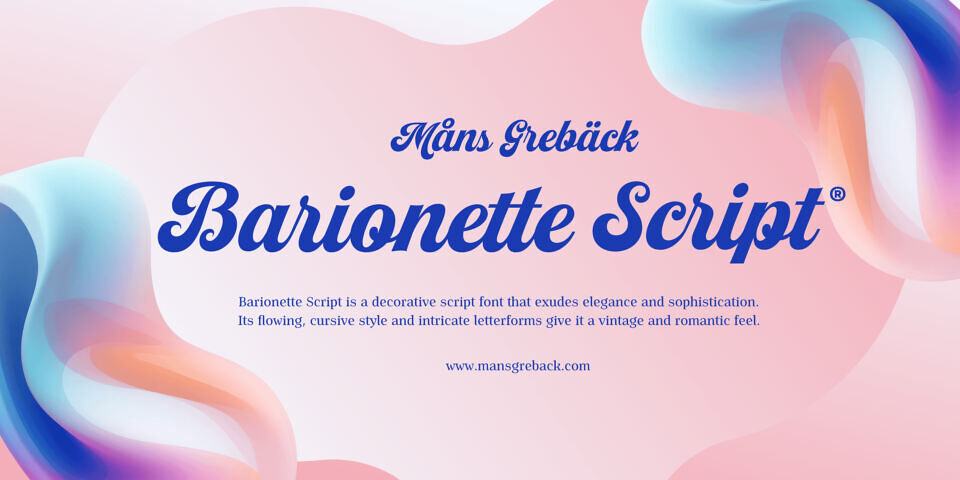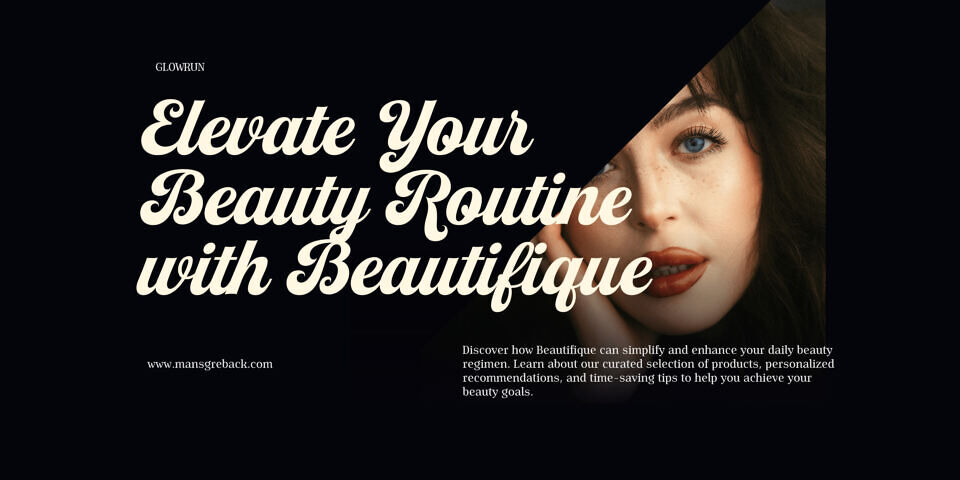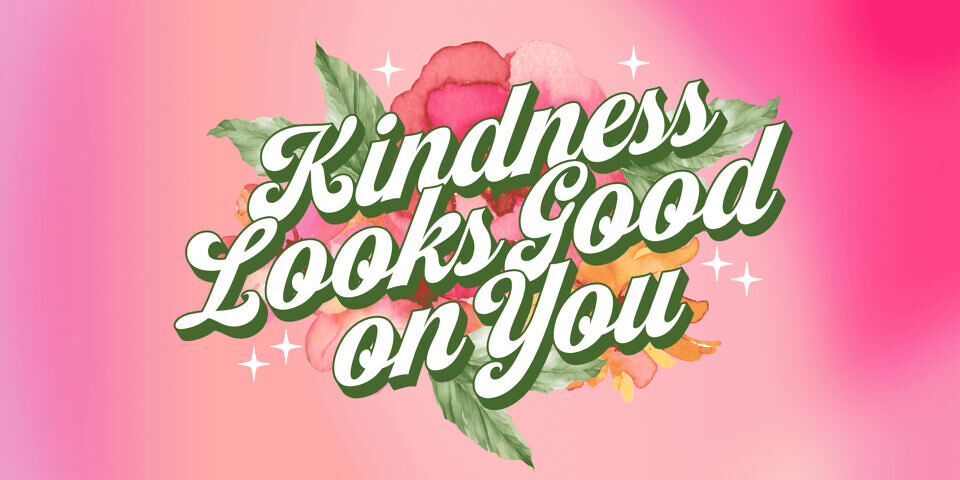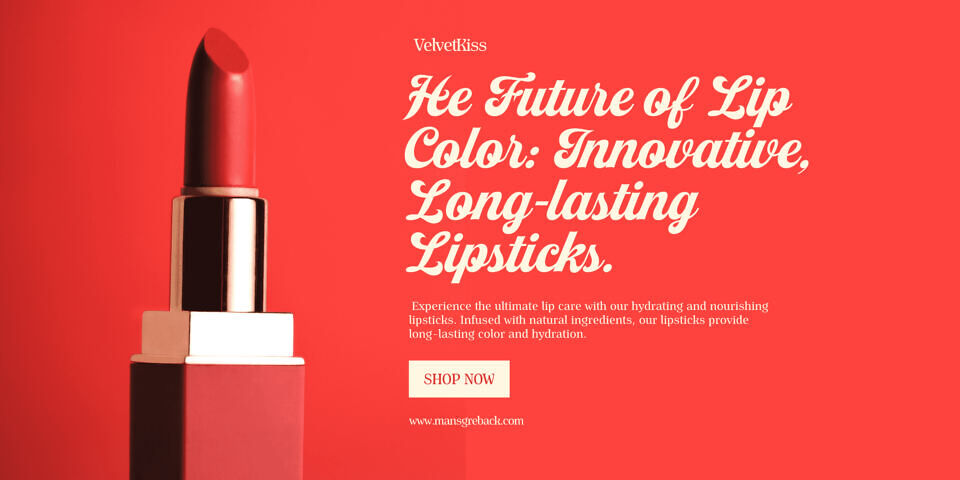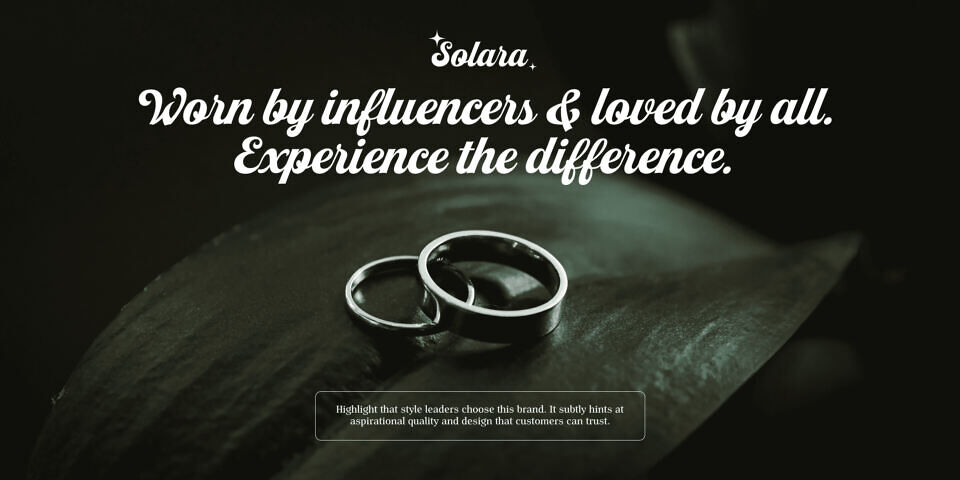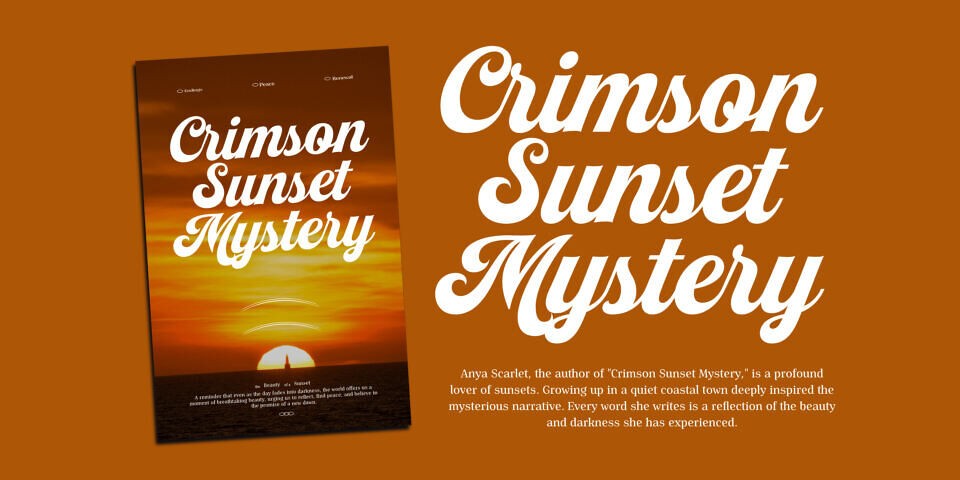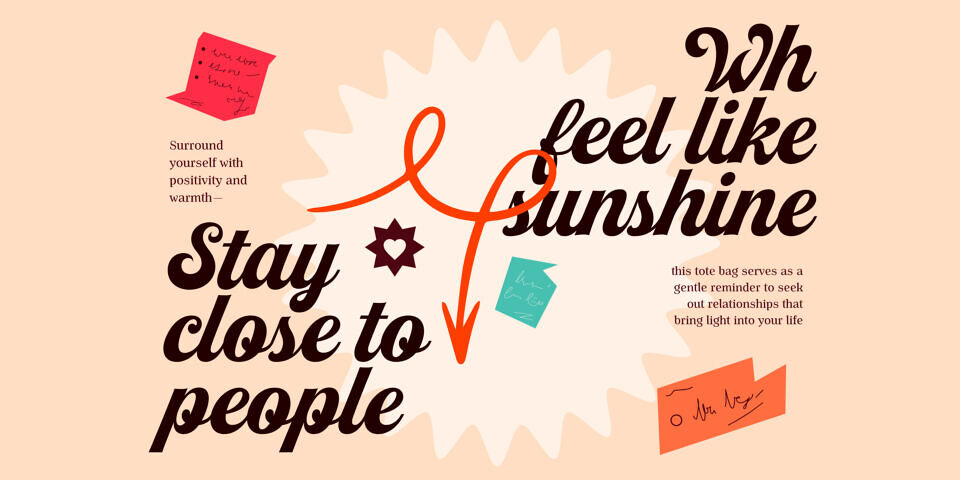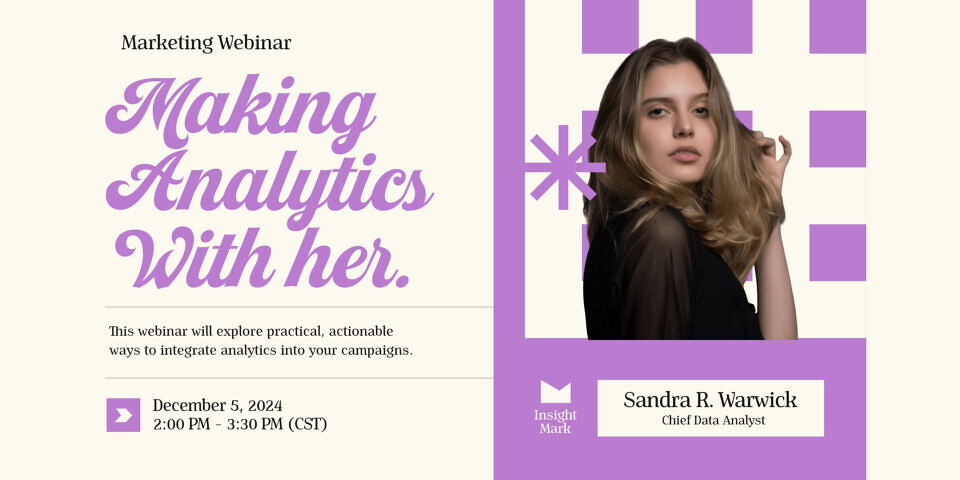
Barionette Script Font
Barionette Script is a bold, flowing script with a heavy stroke. The letters are designed with generous swirls and swashes, giving it a classic and elegant feel. It’s a typeface that brings a grand presence, suitable for designs that require a touch of both tradition and flair. Imagine it on a vintage poster or a sophisticated invitation; the letterforms of Barionette Script command attention with their strong, confident curves.
The font is built with advanced OpenType functionality and guaranteed top-notch quality, containing stylistic and contextual alternates, ligatures and more automatic and manual features; all to give you full control and customizability.
It has extensive lingual support, covering all Latin-based languages, from North Europa to South Africa, from America to South-East Asia. It contains all characters and symbols you’ll ever need, including all punctuation and numbers.